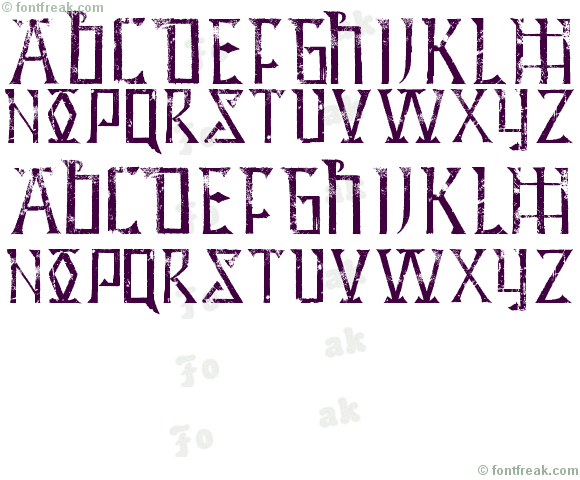
Hidden Archives
About Hidden Archives
Hidden Archives by Hero Fonts is a striking display typeface that captures a sense of mystery and intrigue. This font showcases a unique style characterized by its sharp angles and a rugged, textured appearance, reminiscent of ancient scripts or forgotten manuscripts. The stroke weight varies throughout the characters, creating an engaging contrast that draws the eye. The spacing is tight, enhancing the font's bold presence, while the decorative elements evoke a sense of history and storytelling, making it ideal for projects that aim to convey depth and emotion.
The Hidden Archives font free download is perfect for a variety of creative applications. It can be effectively used in movie posters, where its dramatic flair adds an element of suspense and excitement. Additionally, this font is well-suited for book covers, especially those in the fantasy or adventure genres, as it conveys an air of mystery and adventure. For graphic designers looking to create eye-catching restaurant menus, Hidden Archives can lend a unique touch that sets a themed dining experience apart. Furthermore, it can enhance invitations for themed events or parties, offering a memorable aesthetic that resonates with guests.
Targeting graphic designers, small business owners, and content creators, Hidden Archives appeals to anyone looking to make a bold statement. Its distinctive style provides an excellent opportunity to infuse personality into branding or promotional materials.
What sets Hidden Archives apart is its ability to evoke curiosity while remaining versatile enough for various design projects. Whether you're crafting a visual narrative or simply seeking to captivate your audience, this font embodies a sense of timelessness and artistry, making it a standout choice in any designer's toolkit.